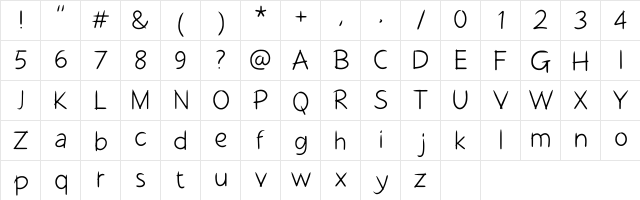
Bangpen Regular
Design Context for Bangpen Typeface
Bangpen offers clean, dependable letterforms without strong stylistic allegiance, making it a practical choice for designers who need flexibility.
Pro Tip: Use Bangpen in both headline and body roles to test its range before committing to a single application.